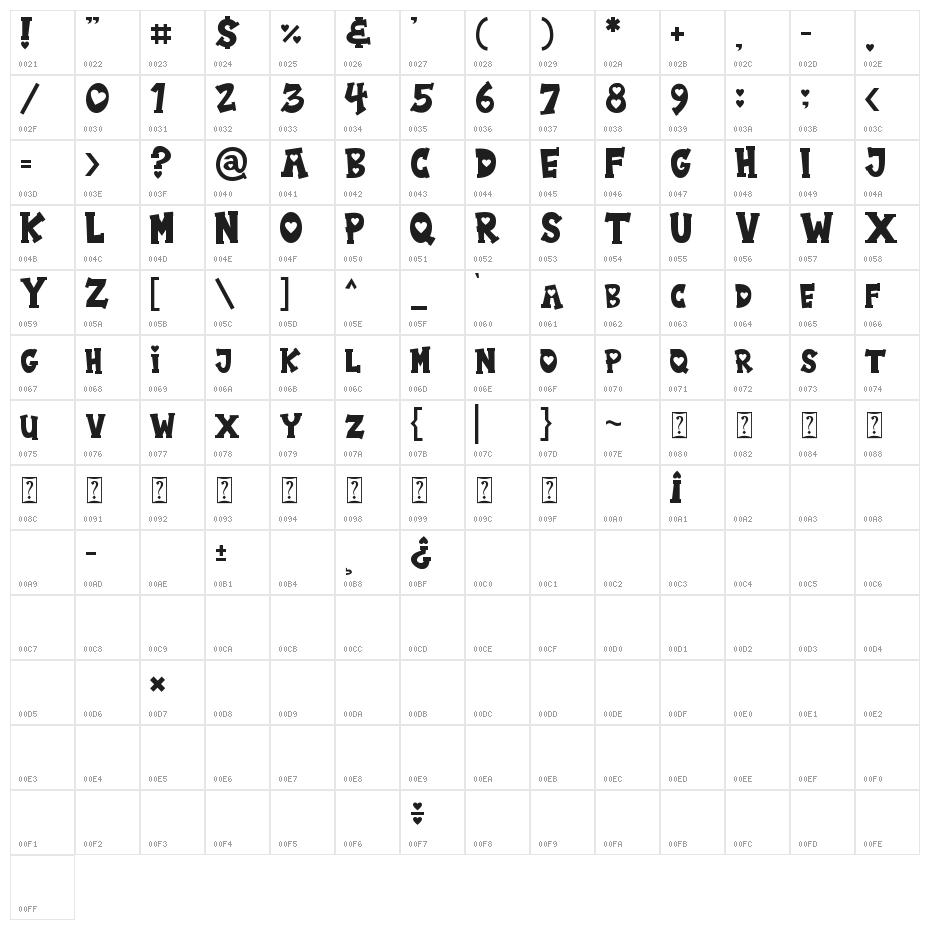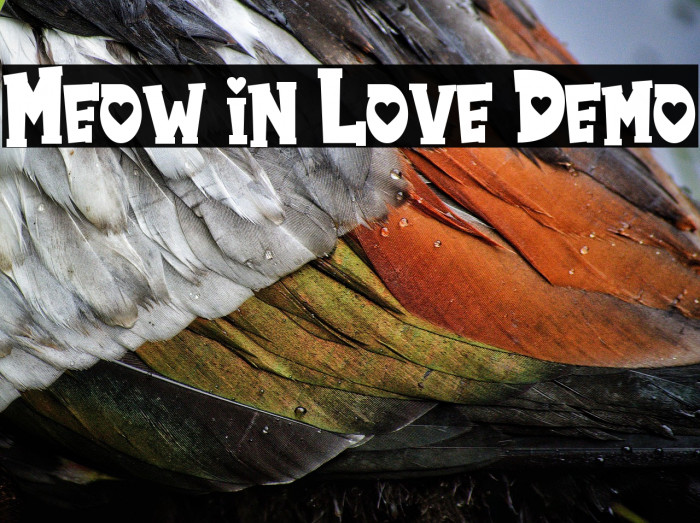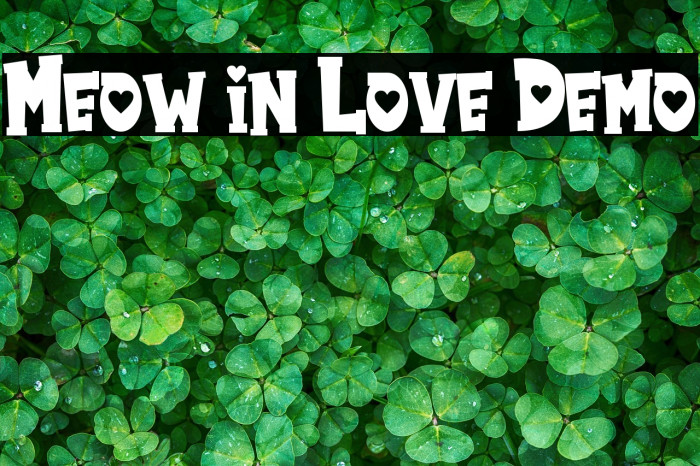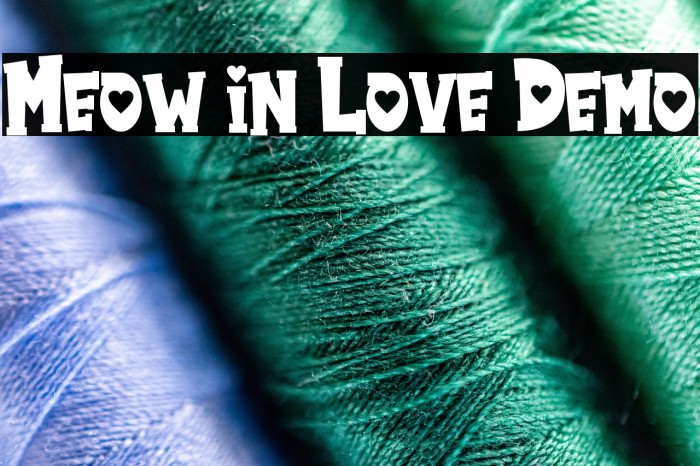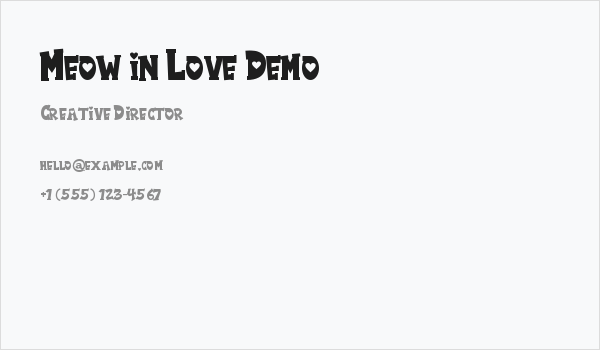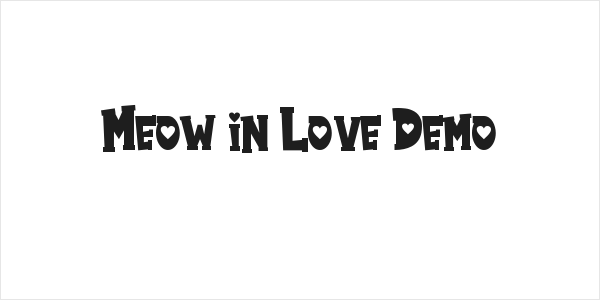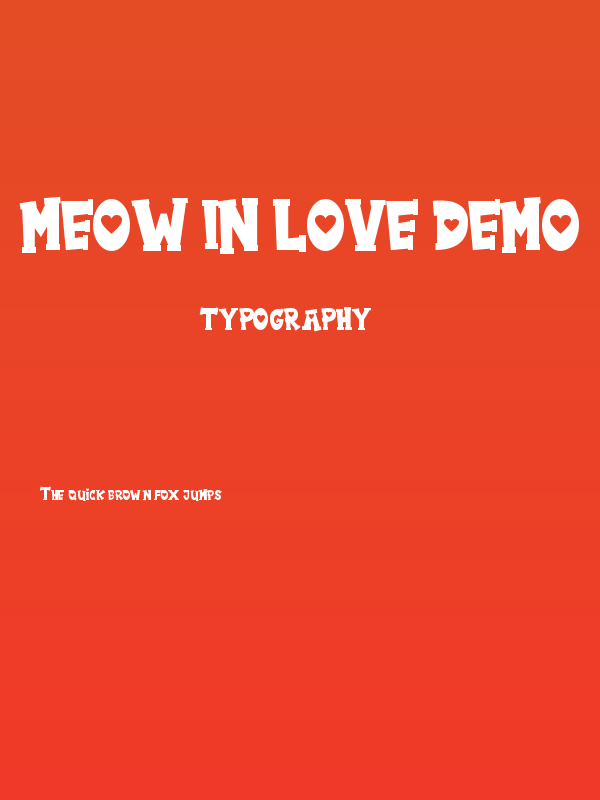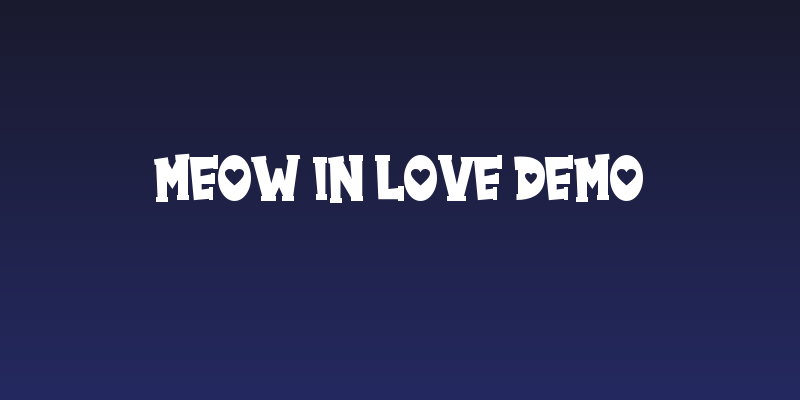
Meow in Love Demo Font
Meow in Love Demo Description
This playful and whimsical font features bold, chunky letters with a unique twist. Each character is adorned with heart-shaped embellishments, adding a touch of romance and fun. The uppercase and lowercase letters maintain a consistent style, with exaggerated serifs and a slightly irregular baseline that enhances its quirky charm. The numbers and special characters follow the same design ethos, making it a cohesive choice for projects that require a lighthearted and affectionate tone. Its bold presence ensures readability while the decorative elements make it stand out.
| Proposed Projects | Ideal for Valentine's Day cards, wedding invitations, playful branding, children's books, and romantic-themed posters. |